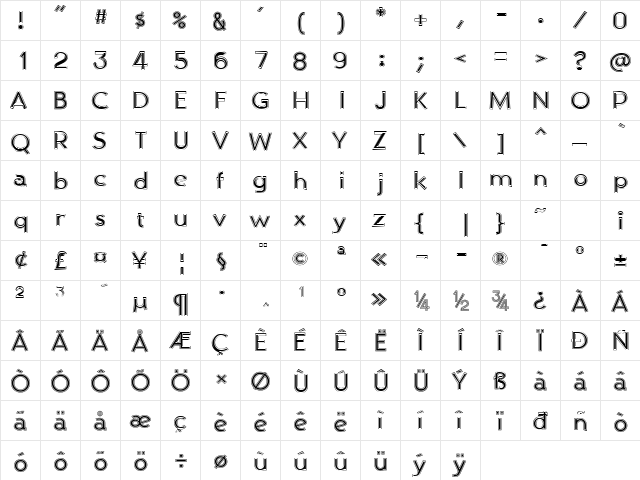
AndrewAndyCollege Regular
AndrewAndyCollege brings high-energy athletic personality to the page — its confident, muscular forms are built for impact.
A natural choice for gym brands, fantasy sports, jersey lettering, and action-driven headlines.
Pro Tip: Use AndrewAndyCollege in all-caps headlines where its athletic energy can fully express itself. Pair with a solid, simple sans for supporting text.